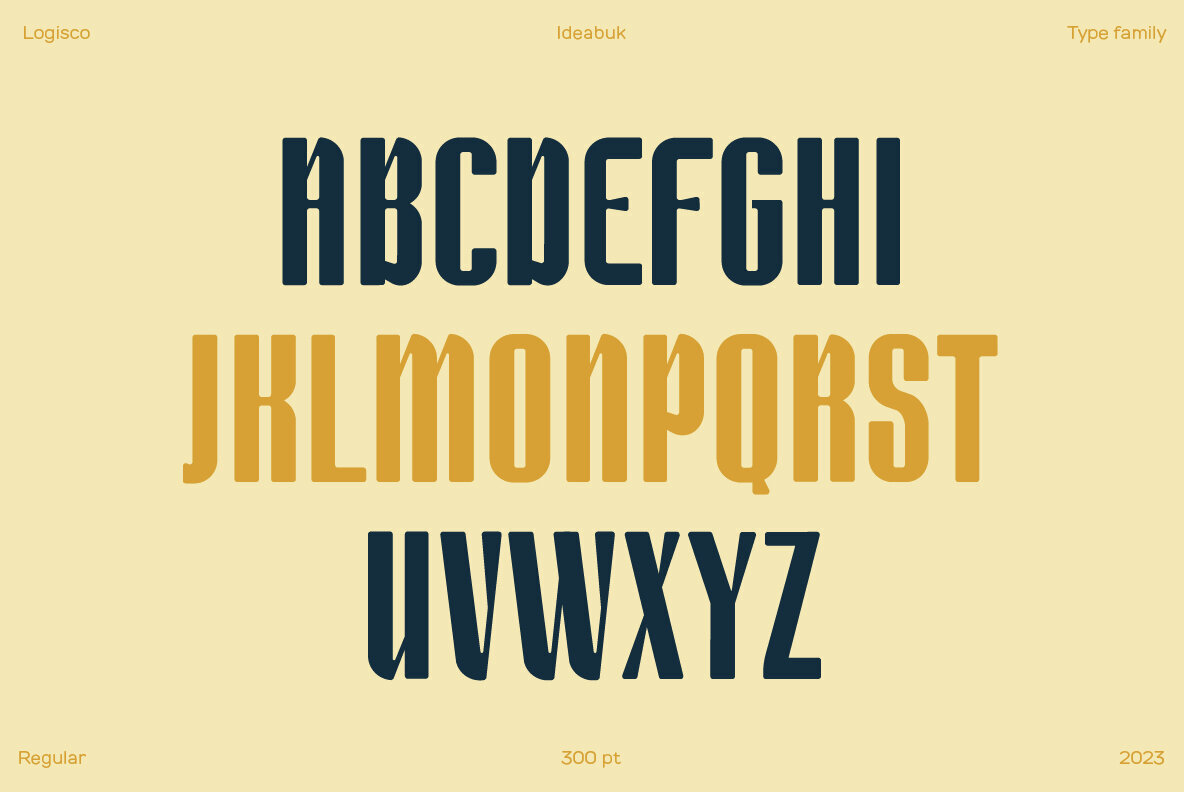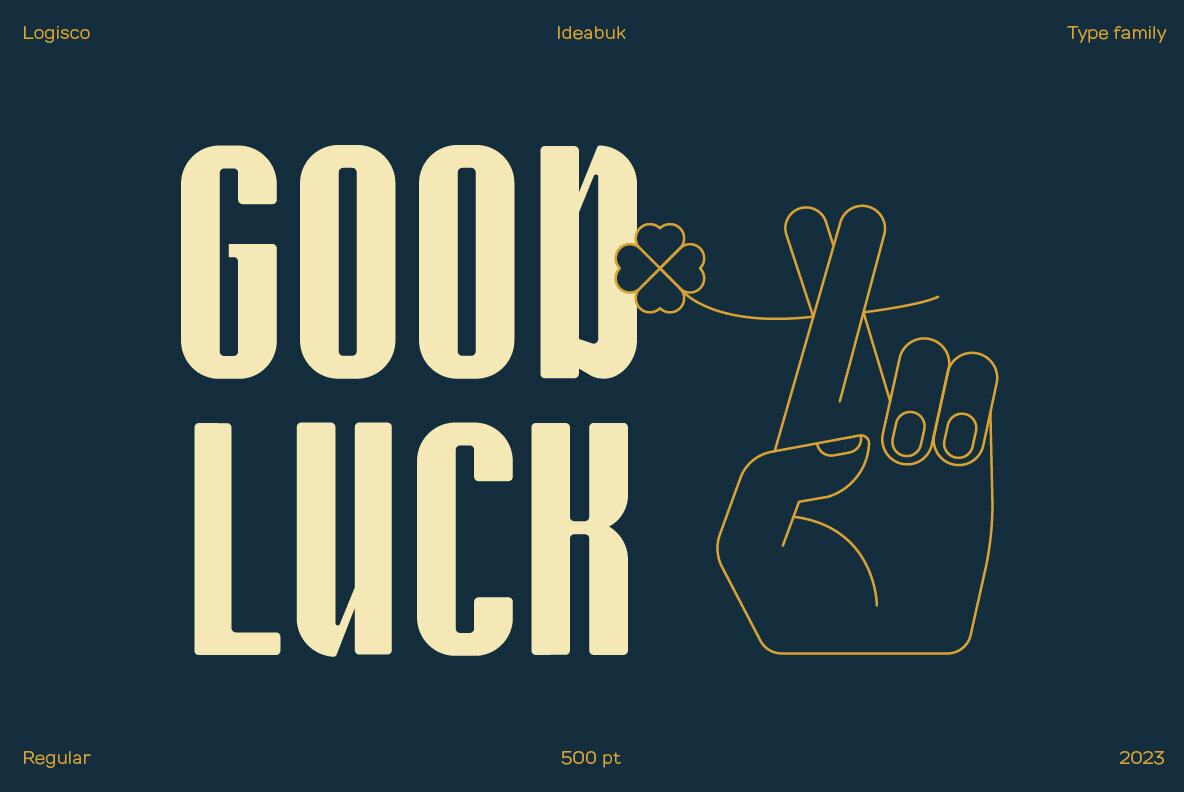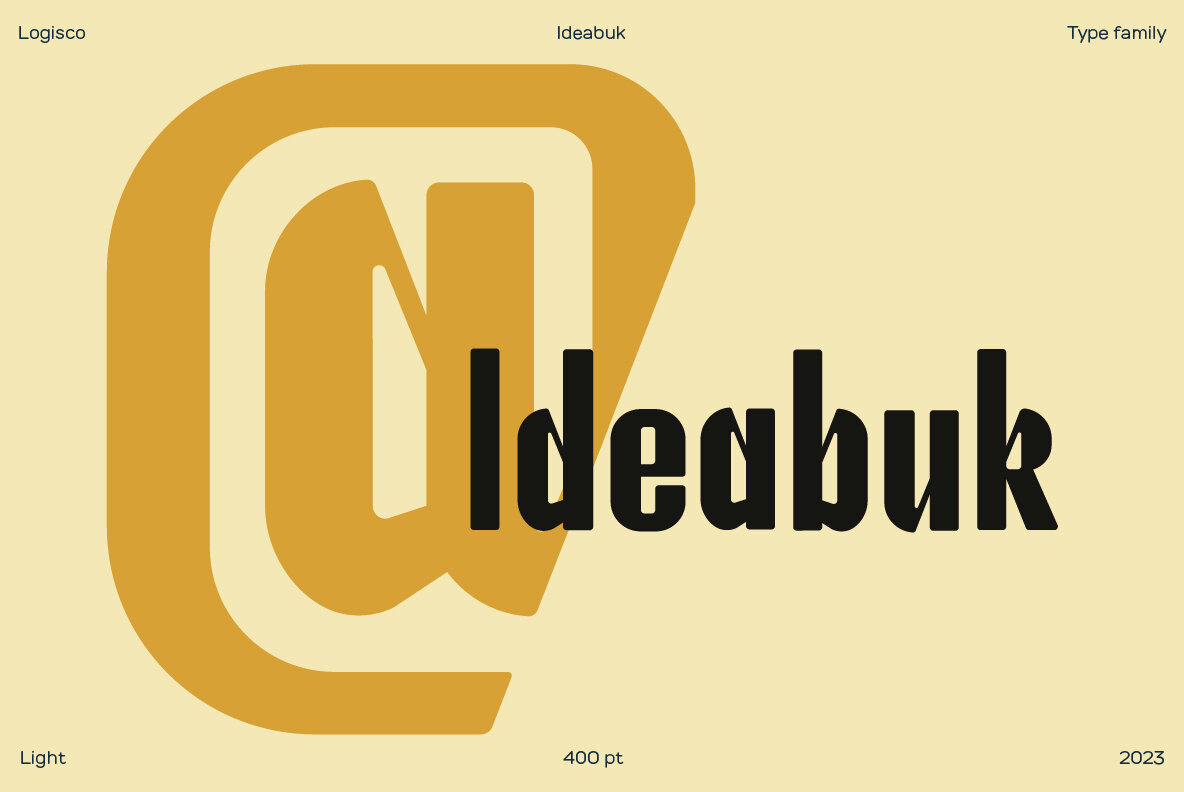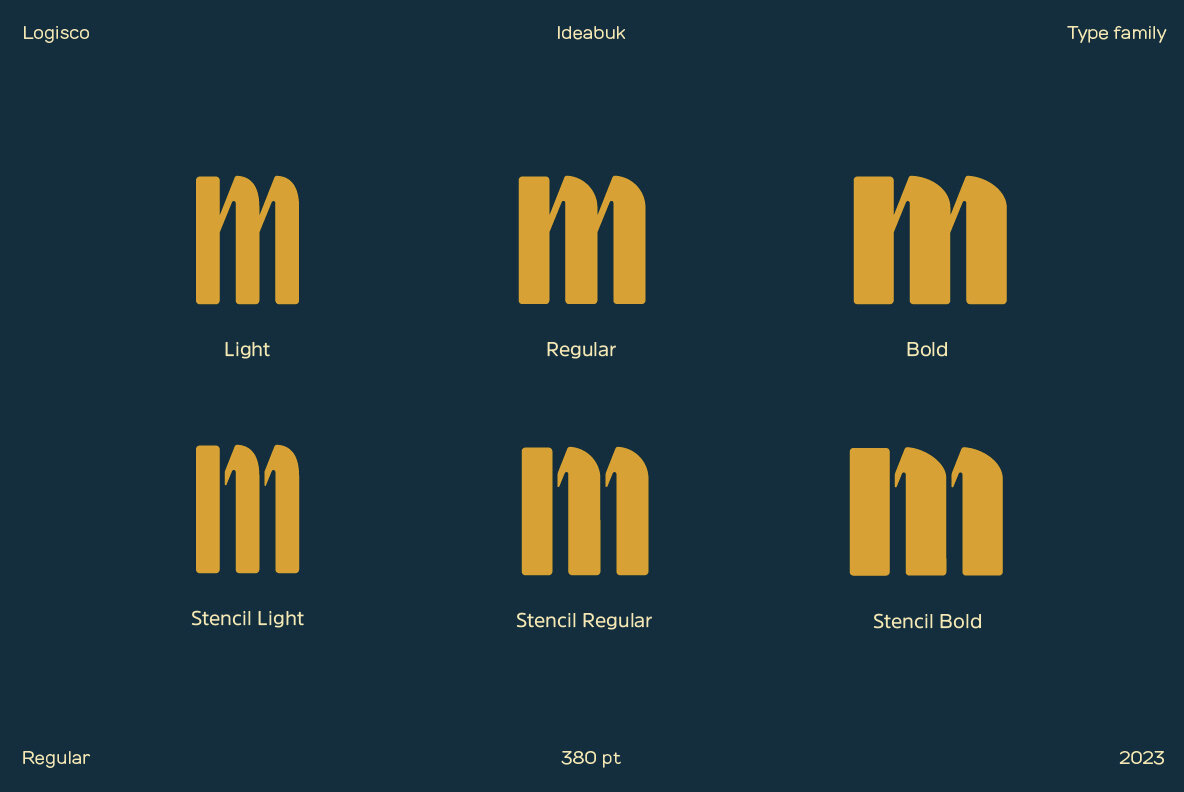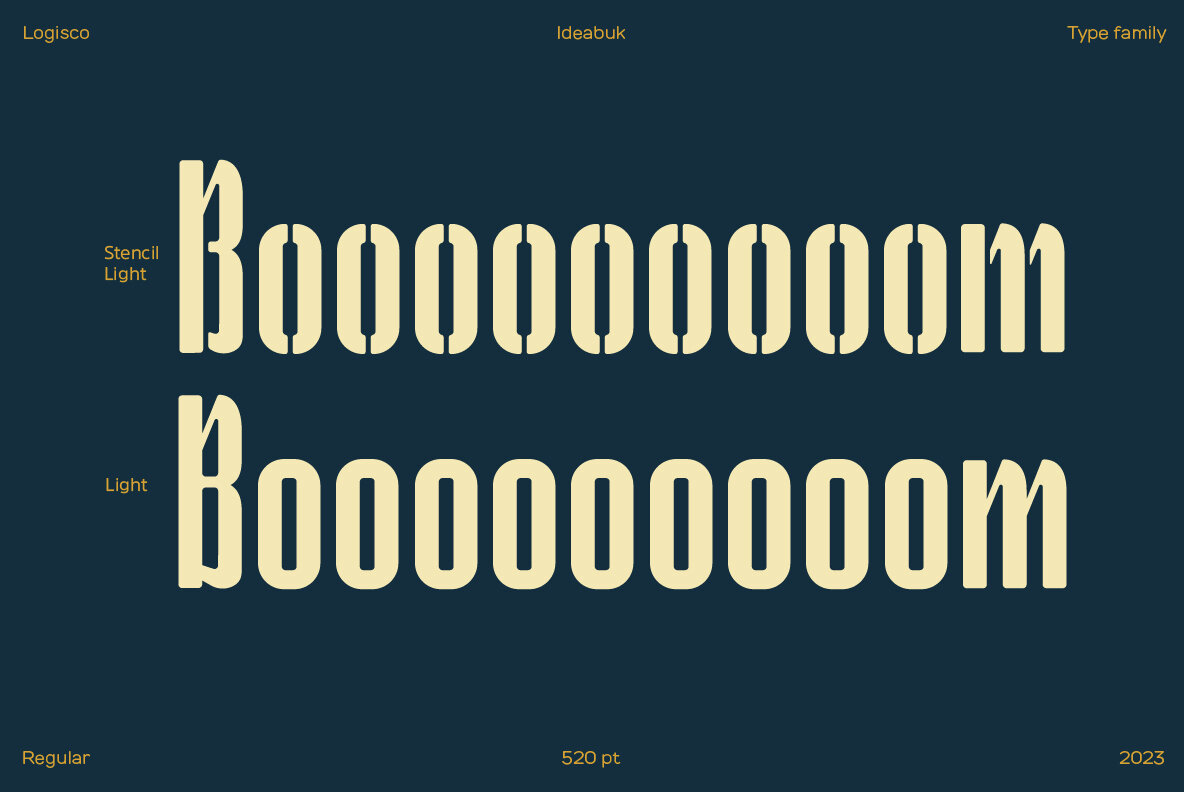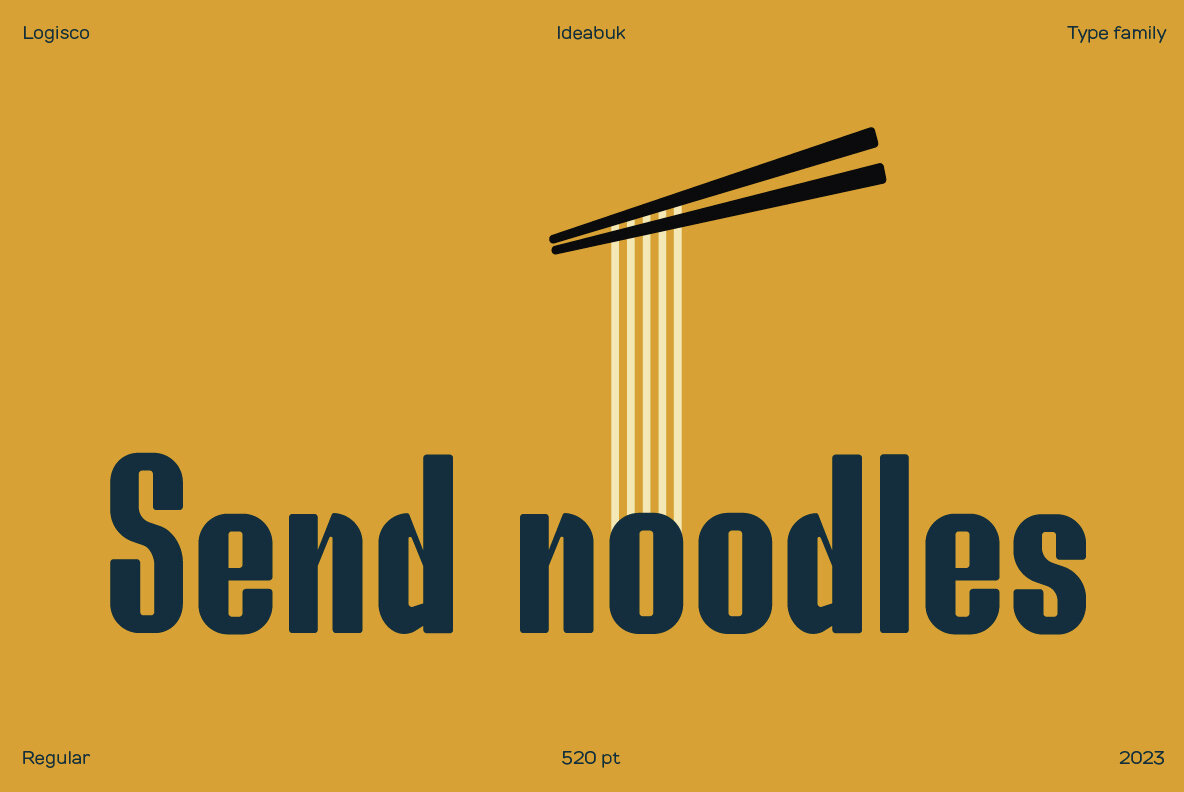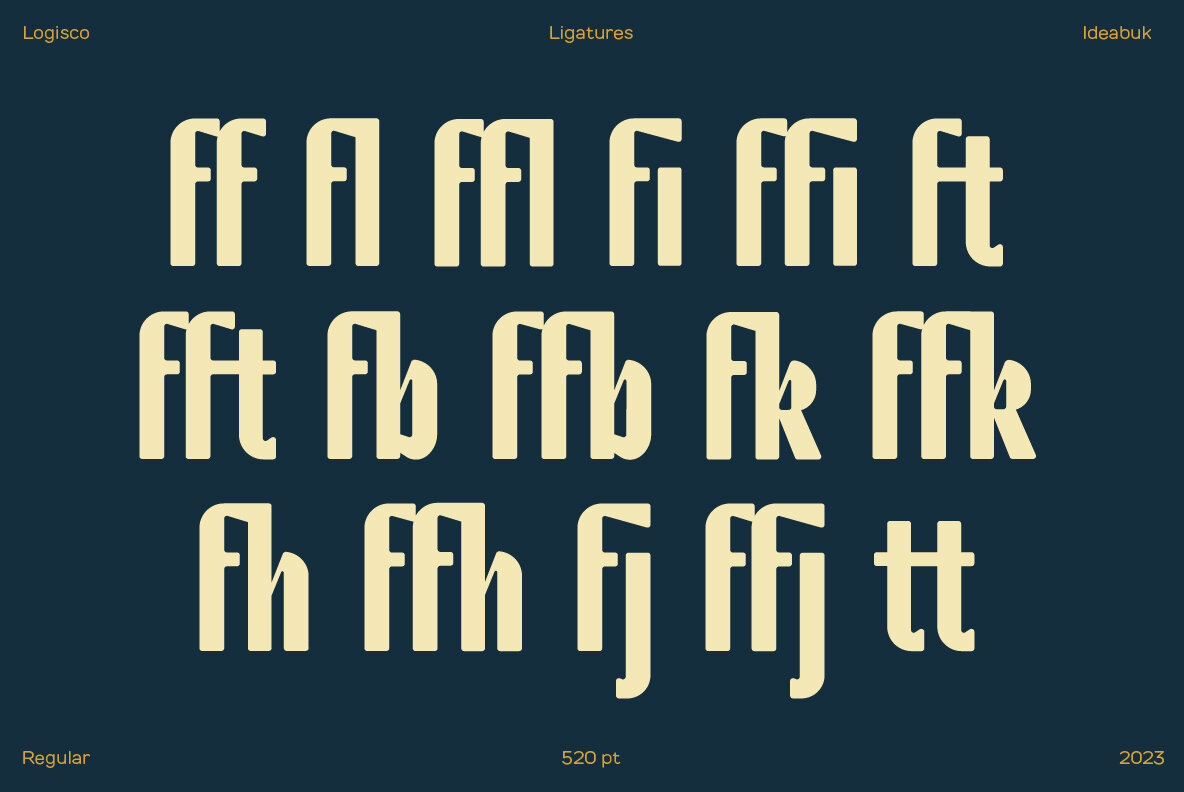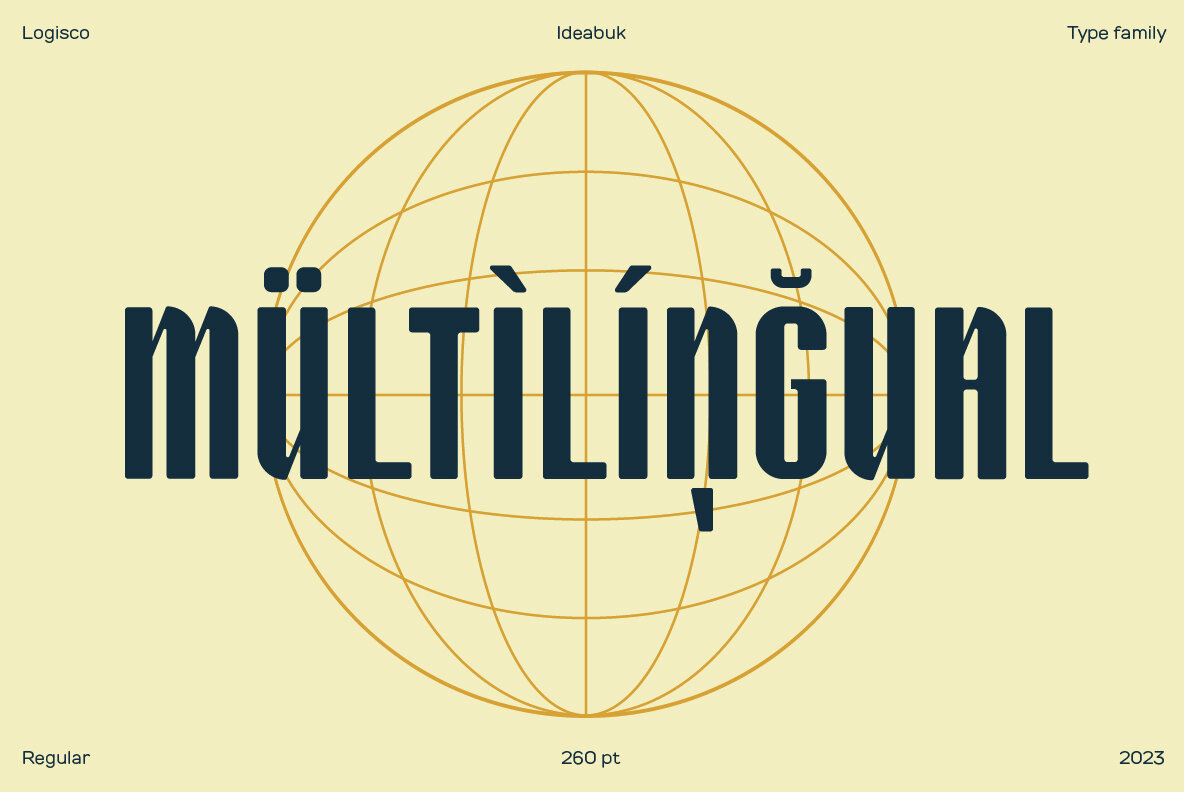
Logisco Font
Inspired by the bold and geometric typography of the mid-20th century, Logisco blends vintage charm with a modern twist. Its strong character and distinctive forms evoke dynamism and optimism but with a fresh and contemporary edge. Its retro-futuristic feel makes it a great choice for designs that nod to the past while remaining firmly rooted in the present. Whether you're creating sleek logos or funky posters, Logisco has you covered with its stylish and versatile letterforms.